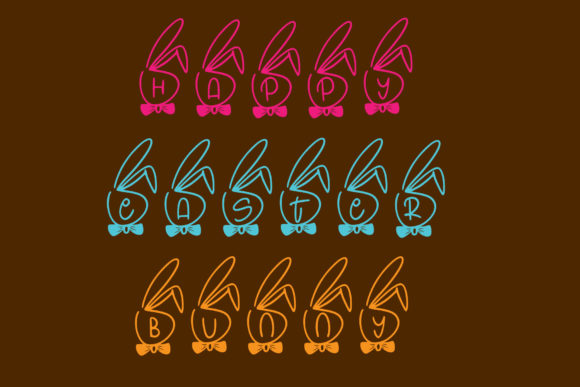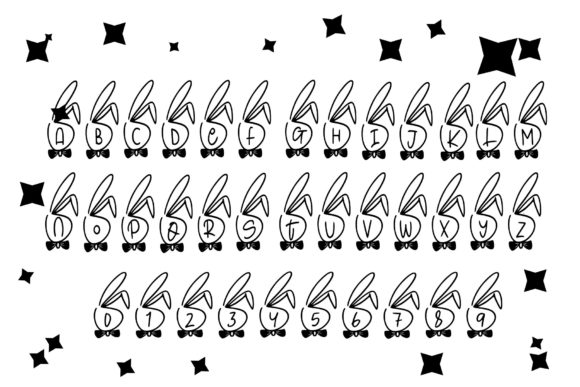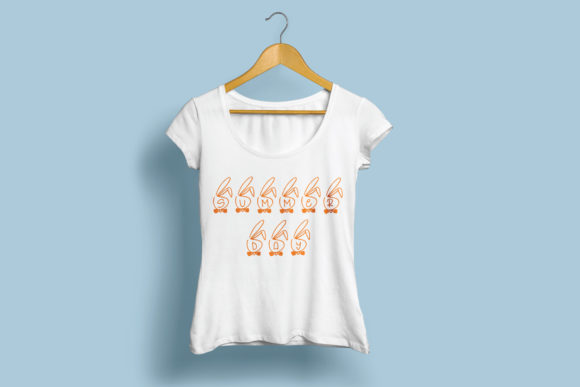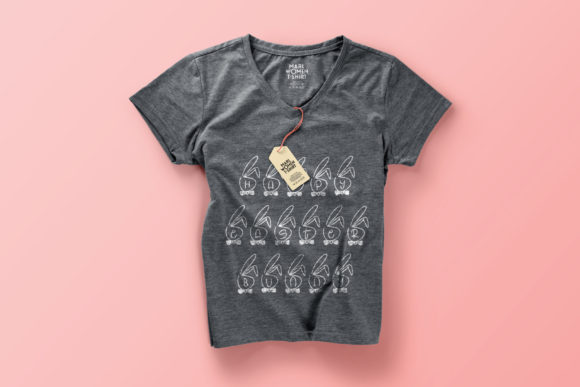
Bunny Sweety Font: The Ultimate Easter Decorative Font for Designers and Crafters
Are you looking for a font that can add a touch of Easter magic to your designs? Look no further than the Bunny Sweety Font! This adorable and joyful Easter-themed decorative font is perfect for designers and crafters who want to create whimsical and eye-catching projects. In this article, we’ll dive into the world of Bunny Sweety Font and explore its features, benefits, and uses.
What is Bunny Sweety Font?
Bunny Sweety Font is a cute and incredibly joyful Easter-themed decorative font that is designed to bring a smile to your face. Its whimsical and quirky style makes it perfect for creating Easter-themed designs, such as greeting cards, invitations, and social media graphics. This font is sure to brighten up each of your designs and add a touch of Easter magic to your projects.
Features of Bunny Sweety Font
So, what makes Bunny Sweety Font so special? Here are some of its key features:
- Cute and Joyful Design: Bunny Sweety Font is designed to be adorable and joyful, making it perfect for Easter-themed designs.
- Whimsical and Quirky Style: This font has a playful and quirky style that will add a touch of personality to your designs.
- Easter-themed: Bunny Sweety Font is specifically designed for Easter-themed designs, making it perfect for creating holiday graphics and projects.
Benefits of Using Bunny Sweety Font
So, why should you use Bunny Sweety Font in your designs? Here are some of its benefits:
- Adds a Touch of Easter Magic: Bunny Sweety Font is designed to add a touch of Easter magic to your designs, making it perfect for holiday projects.
- Increases Visual Appeal: This font’s whimsical and quirky style will add visual interest to your designs and make them stand out.
- Versatile: Bunny Sweety Font can be used in a variety of design projects, from greeting cards to social media graphics.
- Easy to Pair with Other Fonts: This font pairs well with other fonts, making it easy to create unique and visually appealing designs.
Uses of Bunny Sweety Font
So, how can you use Bunny Sweety Font in your designs? Here are some ideas:
- Easter Greeting Cards: Use Bunny Sweety Font to create adorable Easter greeting cards for friends and family.
- Easter Invitations: Create eye-catching Easter invitations with Bunny Sweety Font and make your party planning a breeze.
- Social Media Graphics: Use Bunny Sweety Font to create festive social media graphics for Easter and add a touch of holiday cheer to your feed.
- Crafting Projects: Add Bunny Sweety Font to your crafting projects, such as scrapbooking and DIY decorations, for a personal touch.
Tips for Using Bunny Sweety Font
Here are some tips for using Bunny Sweety Font in your designs:
- Use it Sparingly: Use Bunny Sweety Font sparingly to avoid overwhelming your design.
- Pair it with Other Fonts: Pair Bunny Sweety Font with other fonts to create visually appealing designs.
- Have Fun: Most importantly, have fun with Bunny Sweety Font and enjoy the process of creating!
In conclusion, Bunny Sweety Font is a cute and incredibly joyful Easter-themed decorative font that is perfect for designers and crafters who want to add a touch of Easter magic to their designs. Its whimsical and quirky style makes it perfect for creating Easter-themed designs, and its ease of use makes it accessible to designers and crafters of all levels. So, what are you waiting for? Download Bunny Sweety Font today and start creating your own Easter-themed designs!